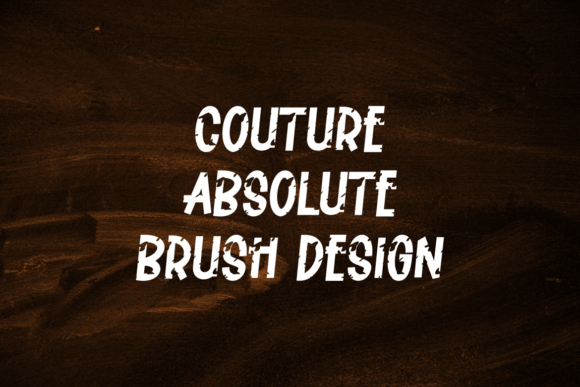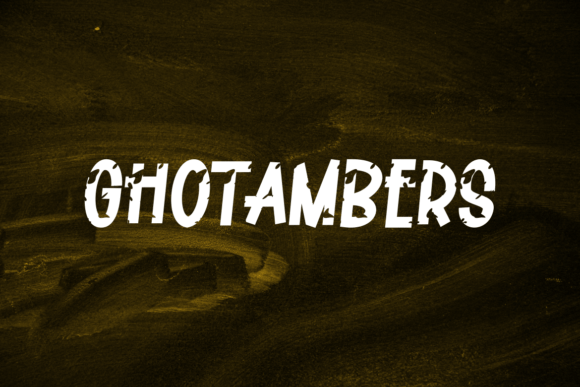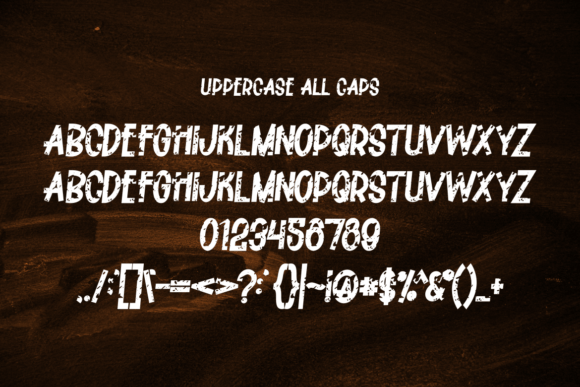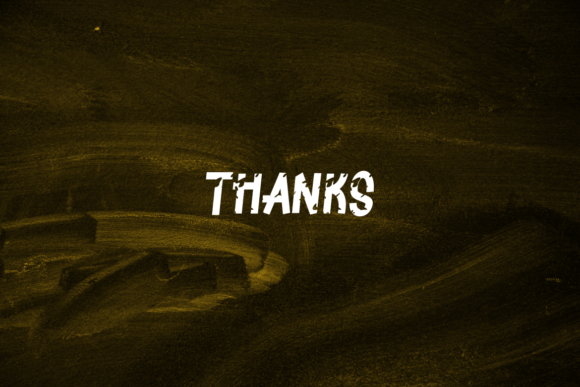
Introduction to Ghotambers Font
Ghotambers is a unique brush font with a lively, hand-drawn style.
It features some cool empty spots in the letters, giving it a fresh and modern look Perfect for adding a touch of creativity to your designs.
Key Features of Ghotambers Font